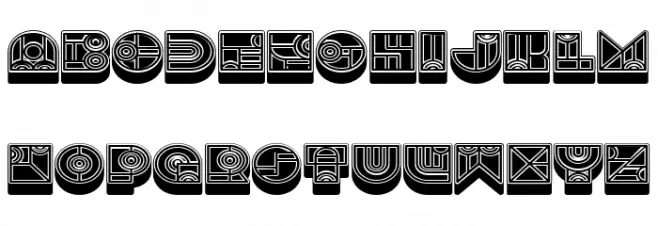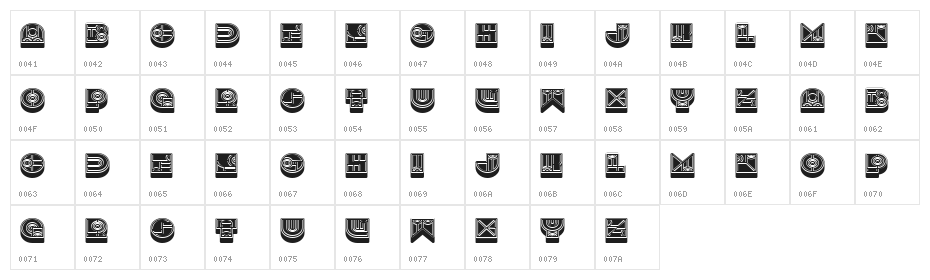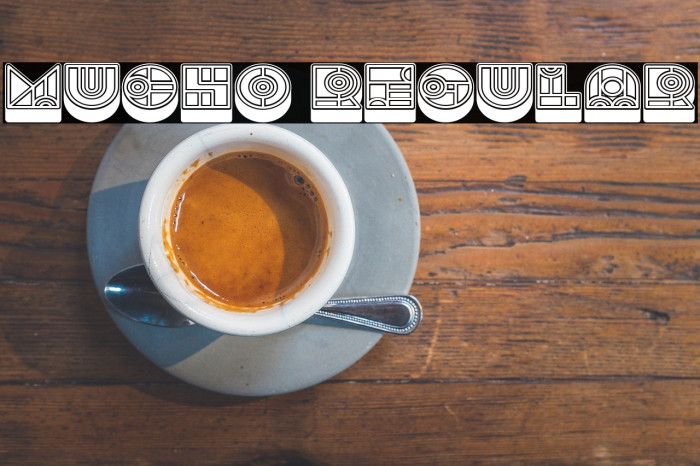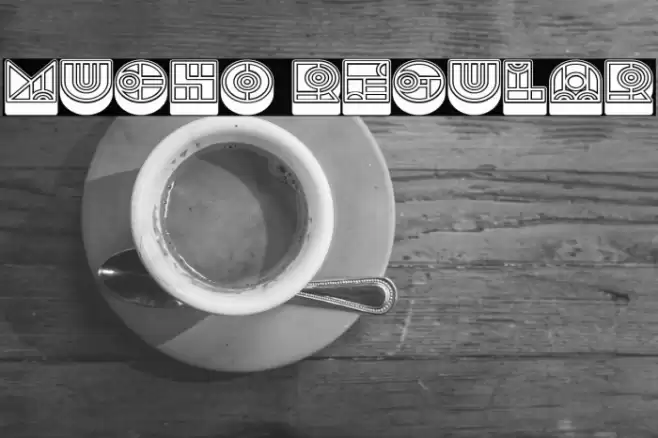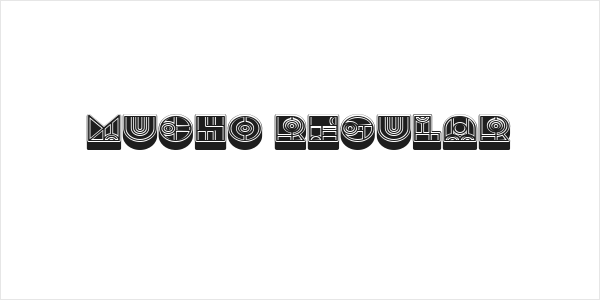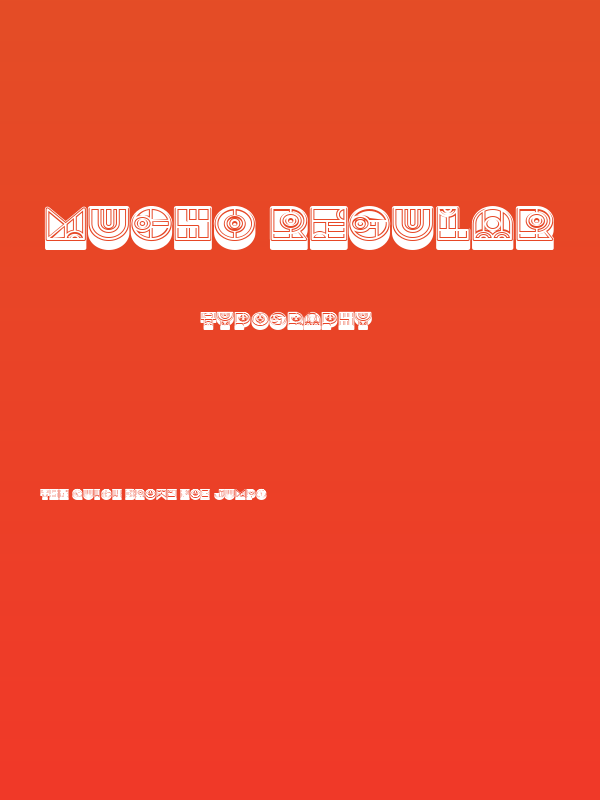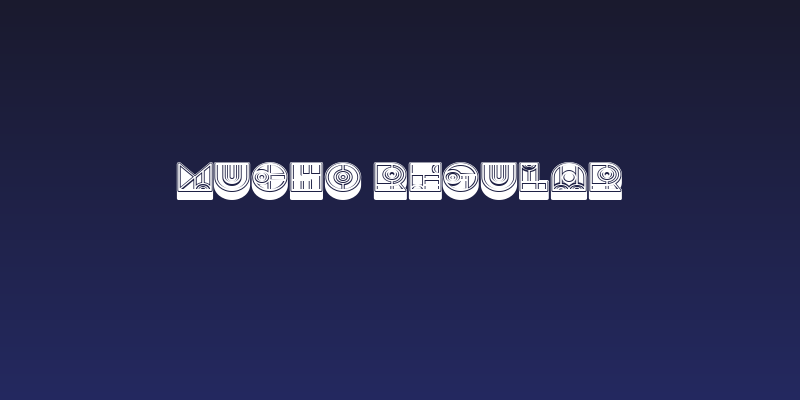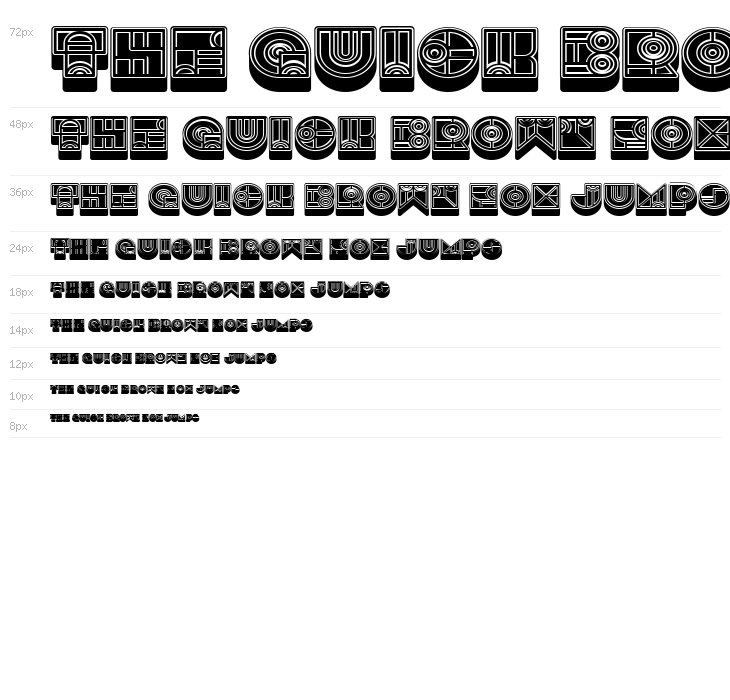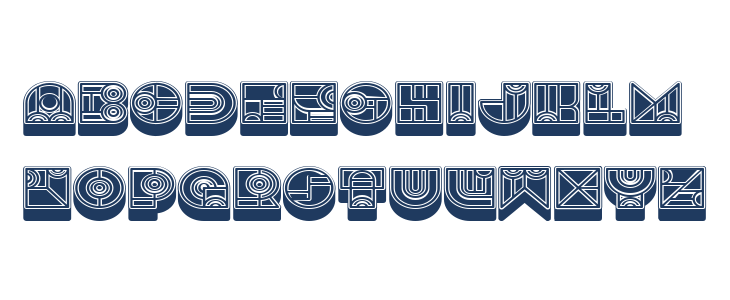
Mucho Regular Font
Mucho Regular Description
This font features a bold, geometric design with intricate patterns inside each character. The letters are constructed with thick lines and filled with decorative elements, giving them a three-dimensional appearance. The style is highly decorative, with a strong emphasis on symmetry and balance. Each character is unique, yet they all share a cohesive design language that makes the font stand out. The font is ideal for creating eye-catching headlines or logos that require a distinctive and artistic touch.
| Proposed Projects | Ideal for branding, poster designs, album covers, and any project needing a bold, artistic statement. |